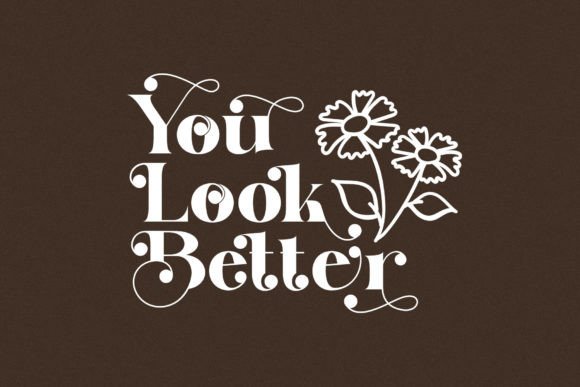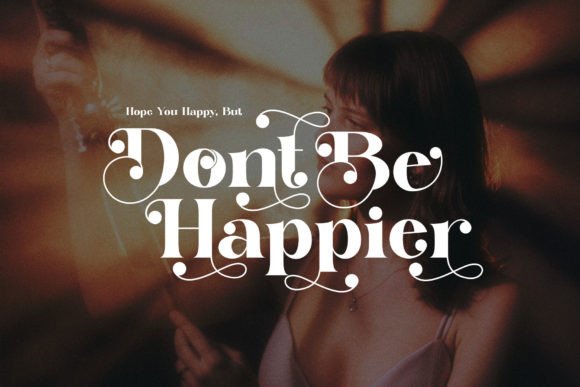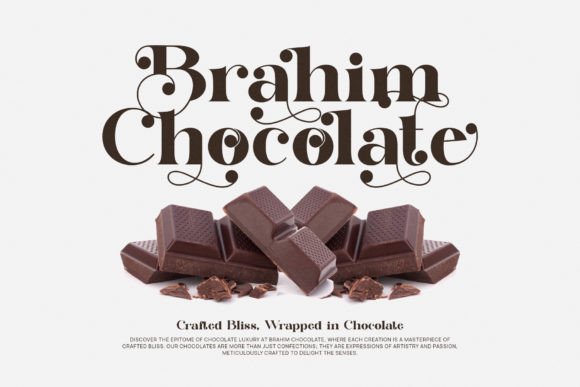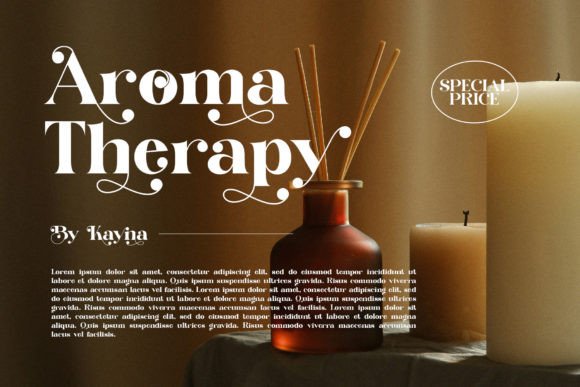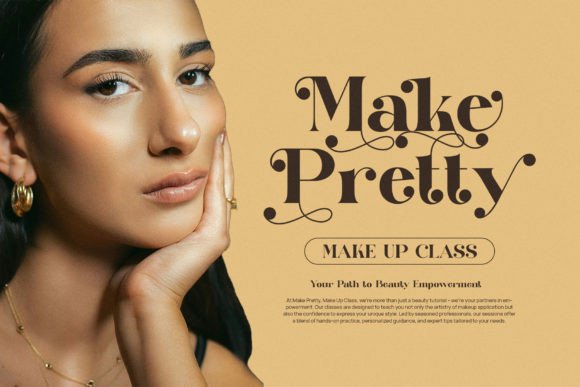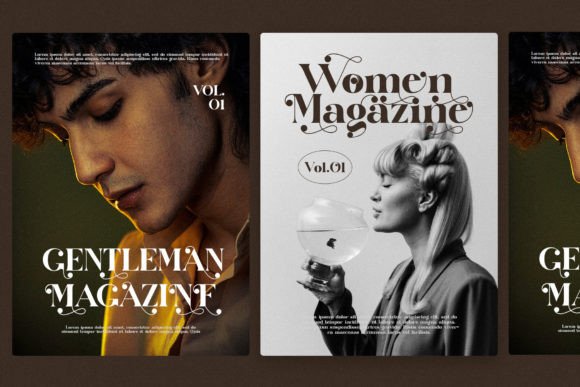
Introduction to Dagrin Font
Dagrin is an elegant serif font, that features a very delicate and classy look.
Not too thin and not too thick, balanced and varied, Dagrin was designed to enhance the beauty of your projects .
Key Features of Dagrin Font